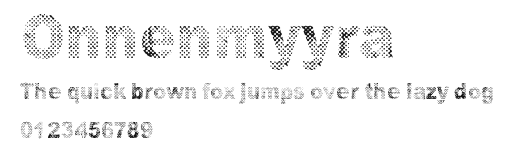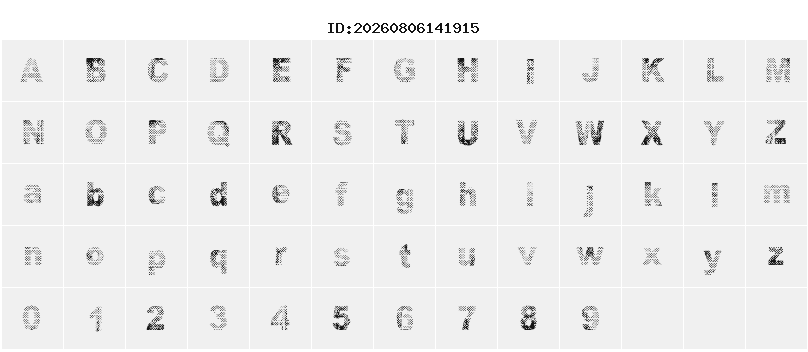
Onnenmyyra Preview
• Font Name: Onnenmyyra
• Designer: junkohanhero
About Onnenmyyra.ttf
Onnenmyyra.ttf is a modern, elegant sans-serif font designed for ultimate readability and visual harmony. Perfect for branding, headlines, web design, and print materials.